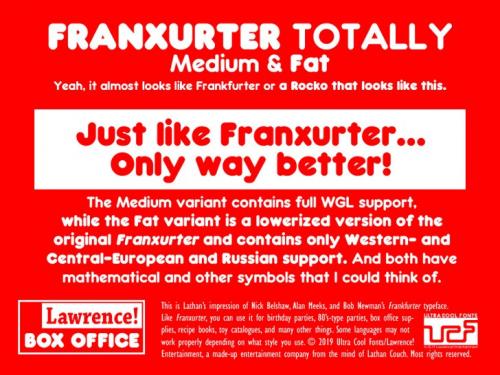
Hello and I want to thank you for choosing Franxurter Totally Font , my impression of Nick, Alan, and Bob’s Frankfurter and Casady & Greene’s Rocko!
You mostly may see the same old design in Max & Ruby, as seen on Nick Jr.—even on Nick Jr. on Pluto TV, but you also may see it in lots of other stuff.
Like the original Franxurter, you can use it for birthday parties, 80’s-type parties, box office supplies, recipe books, toy catalogues, and many other things. Party like it’s 1981 (or so), and mind your F’s and X’s.
‘Frankfurter’ was originally designed by Nick Belshaw, Alan Meeks, and Bob Newman, and ‘Rocko’ was originally designed by Robin Casady, Richard Ware, and Michael Wright.